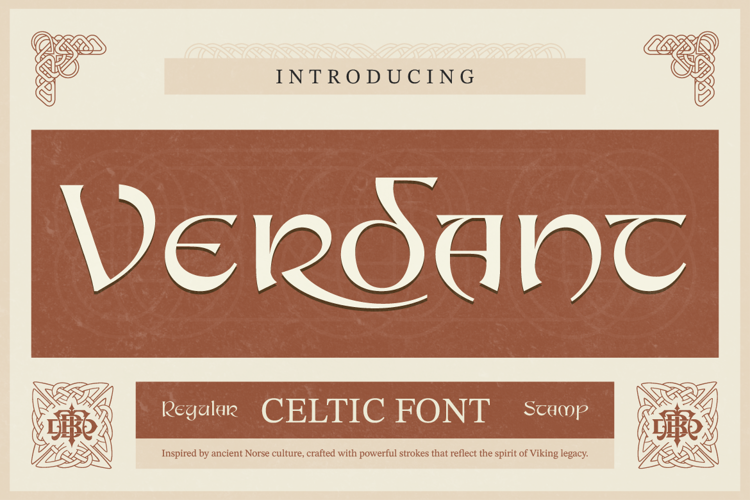
Verdant Font
Verdant is a Celtic-inspired display font with a bold, mythical character rooted in ancient Norse and medieval aesthetics. Built with strong strokes and organic curves, this font brings a powerful, legendary feel to every design.